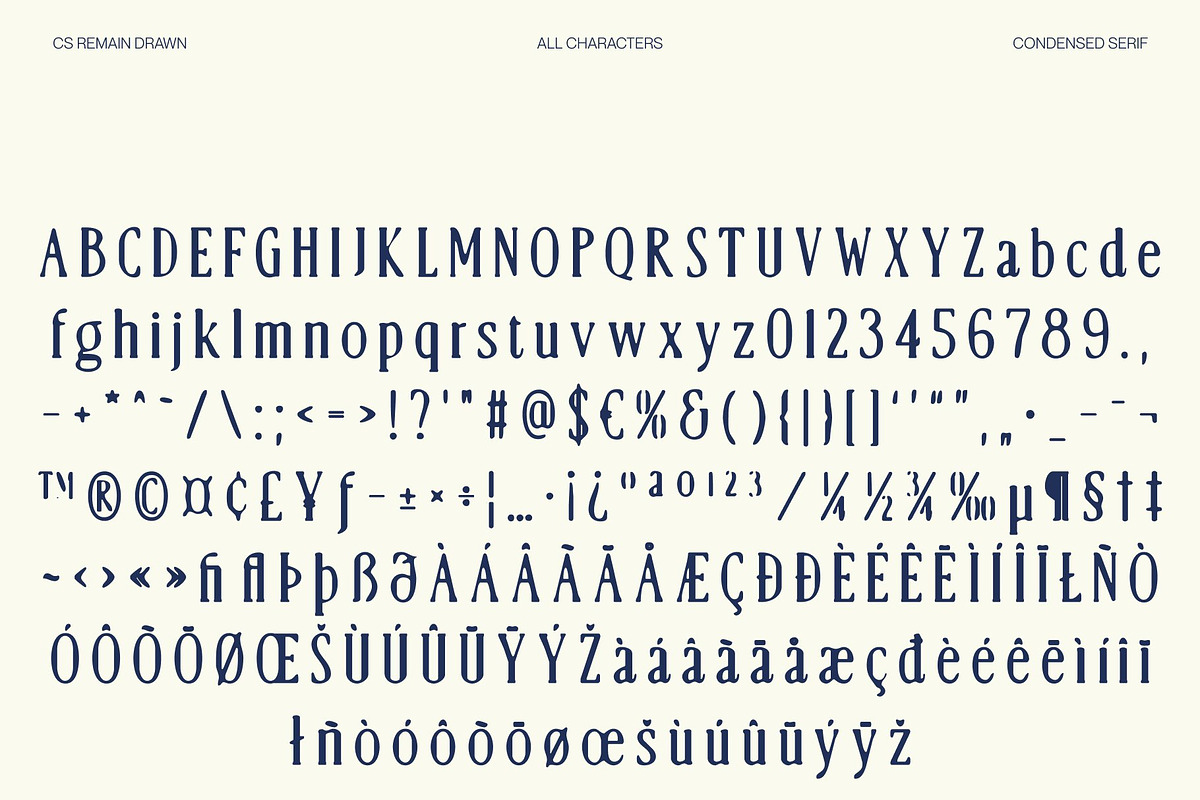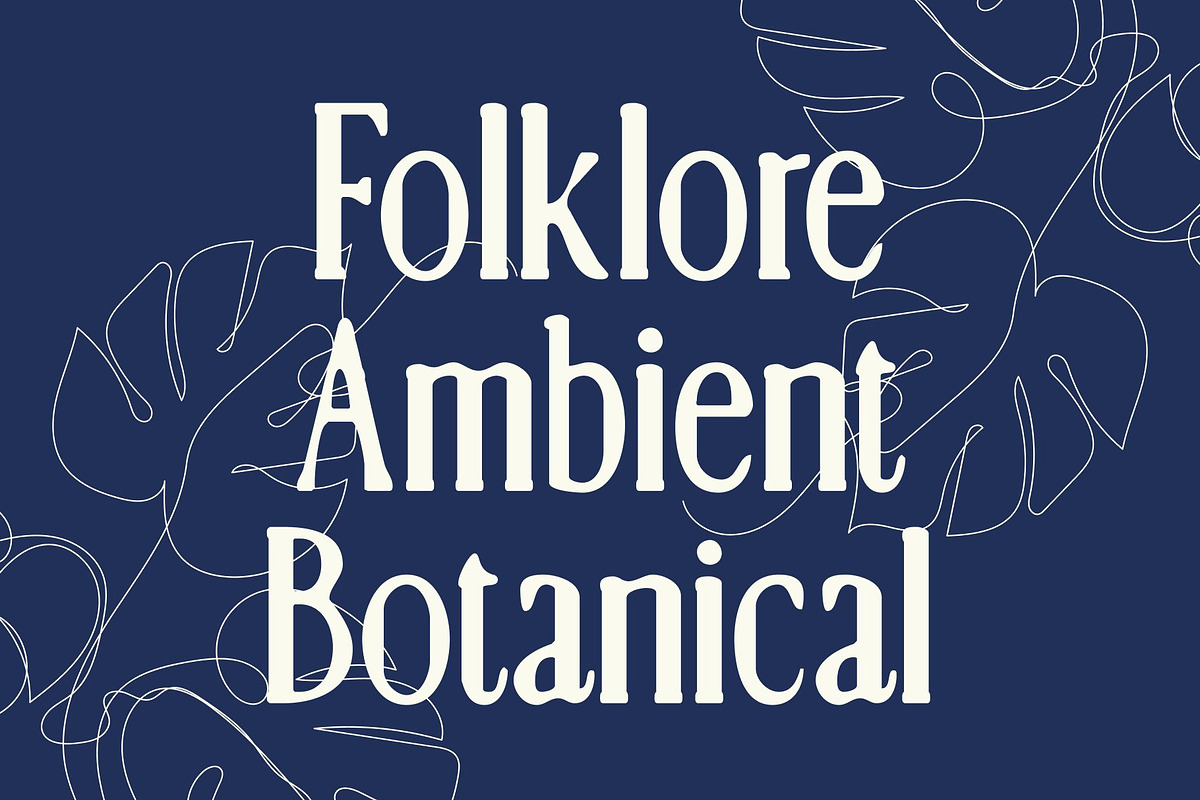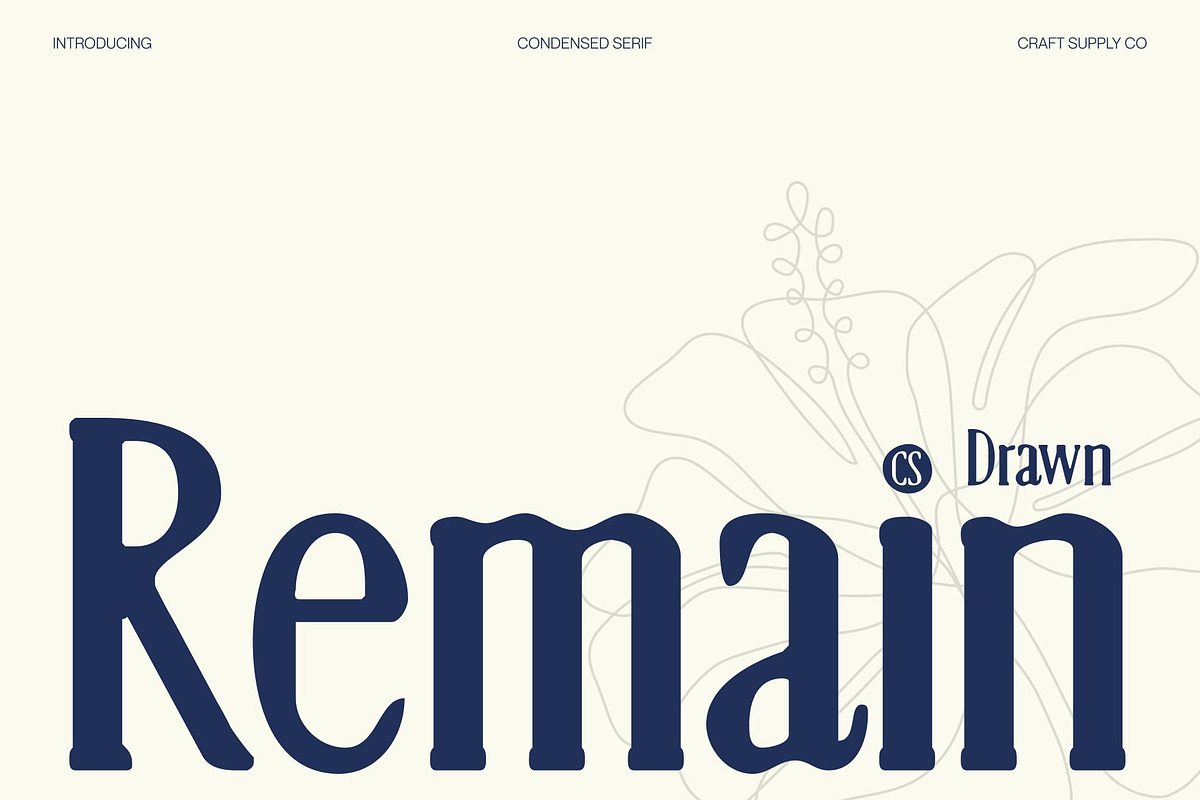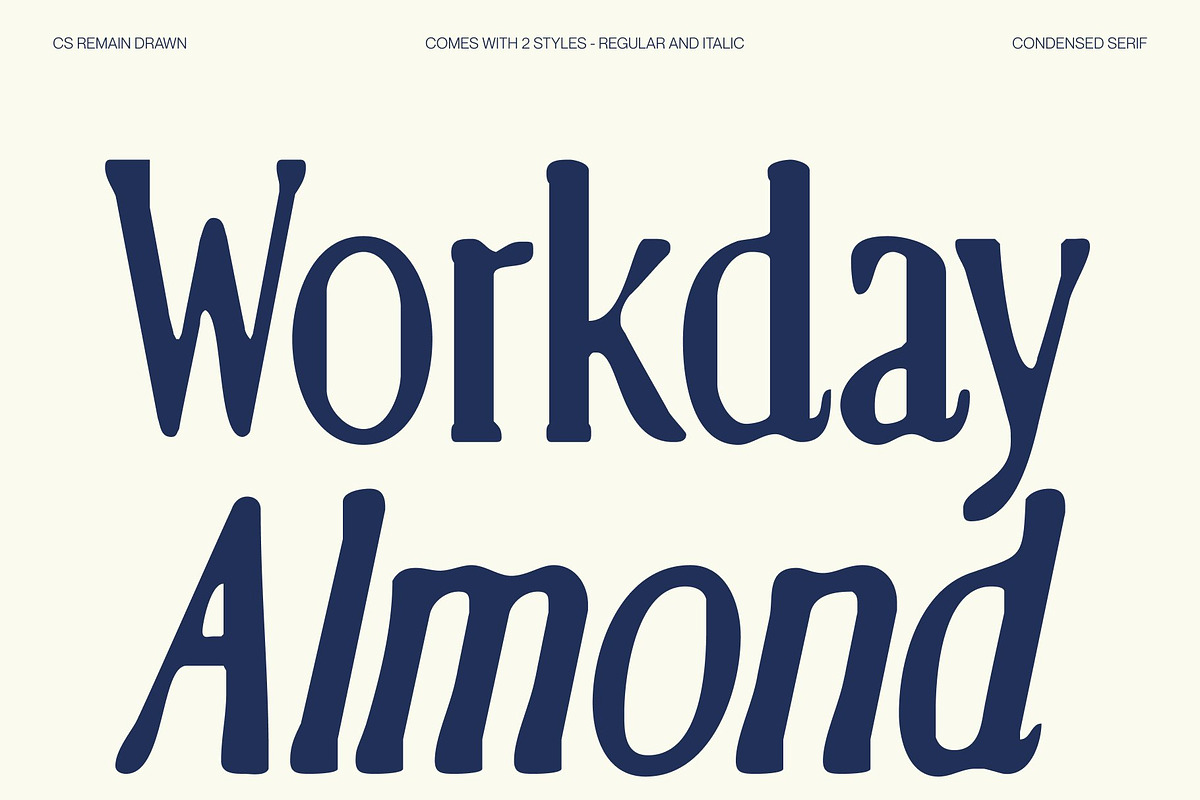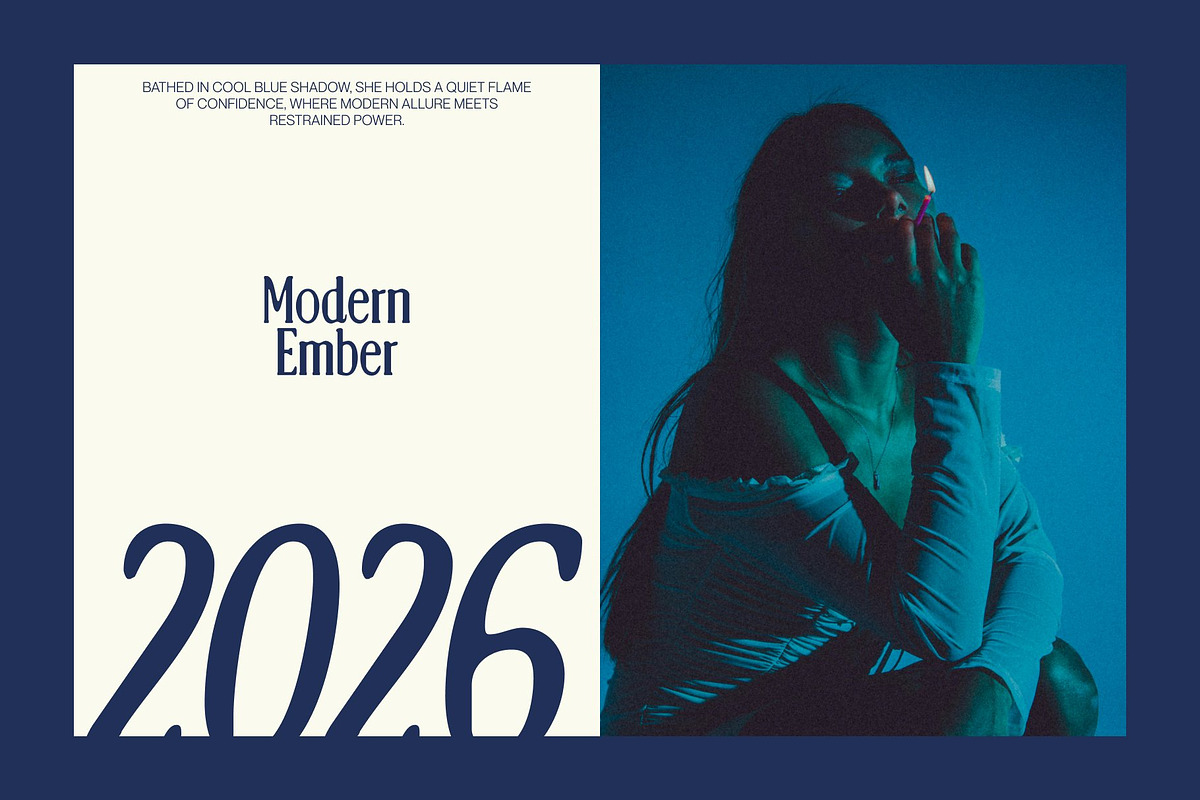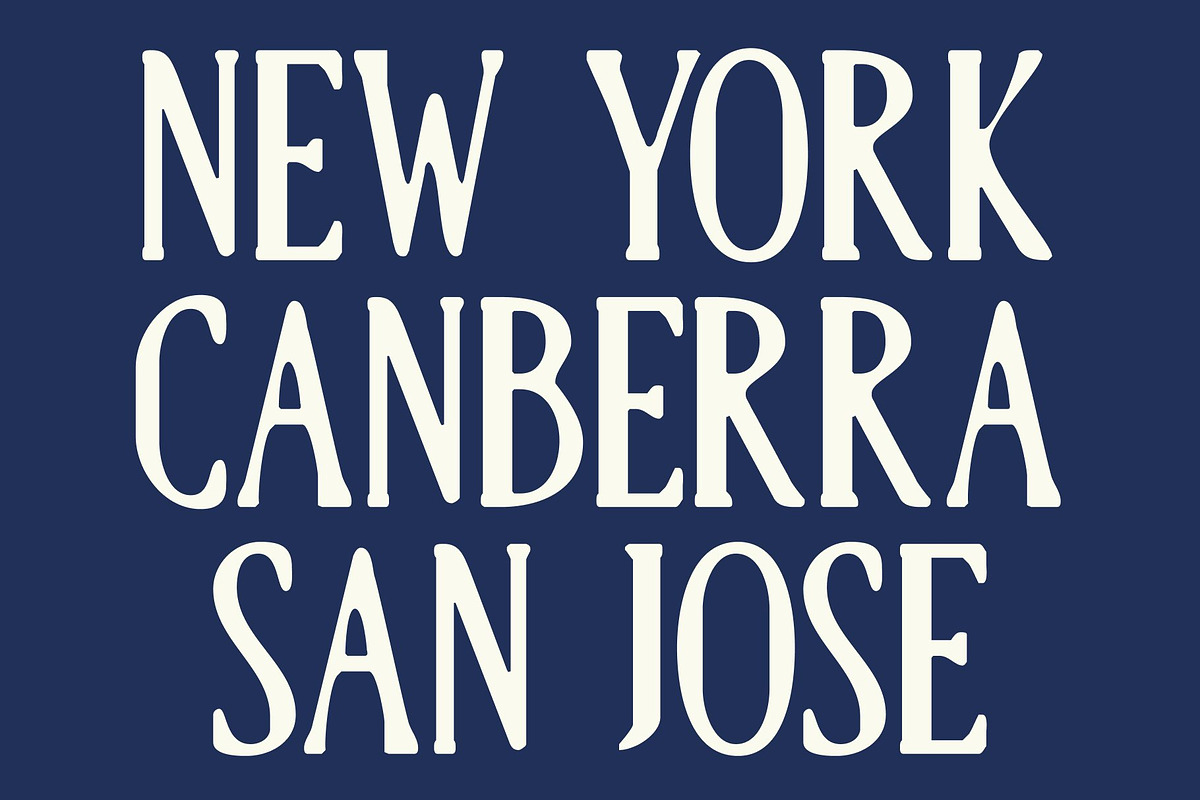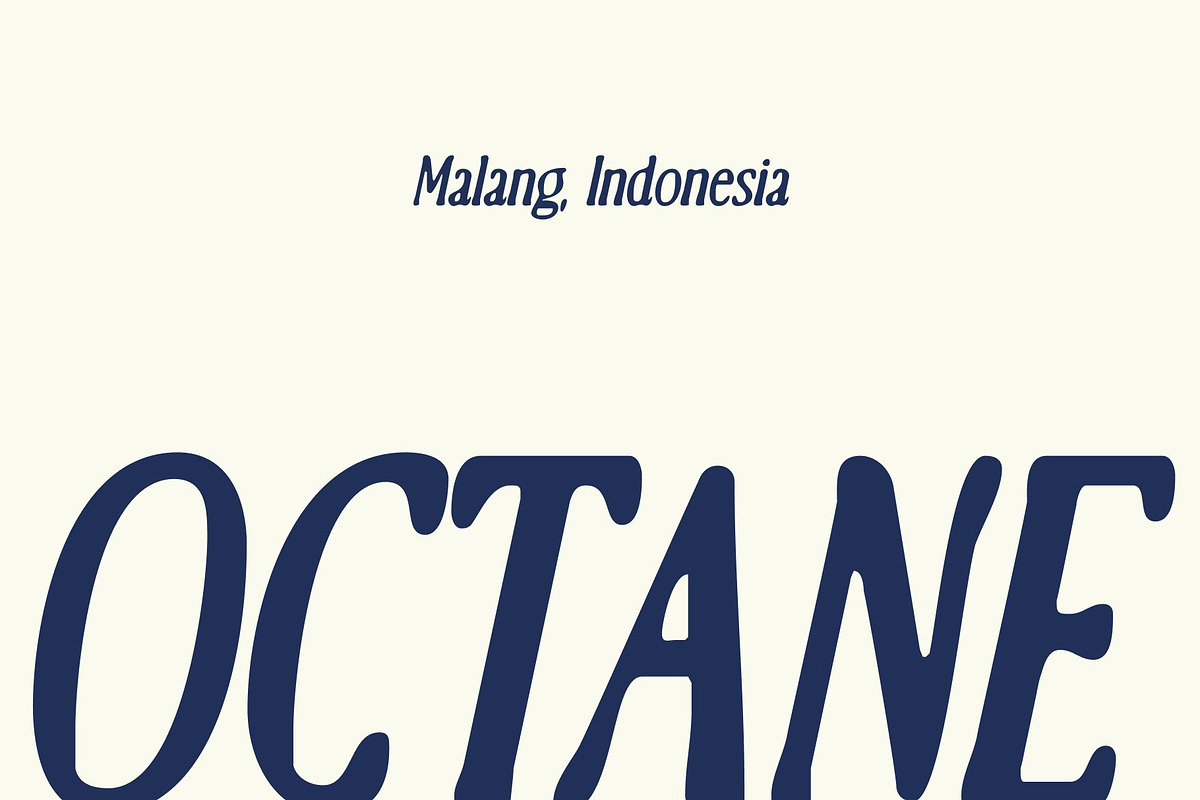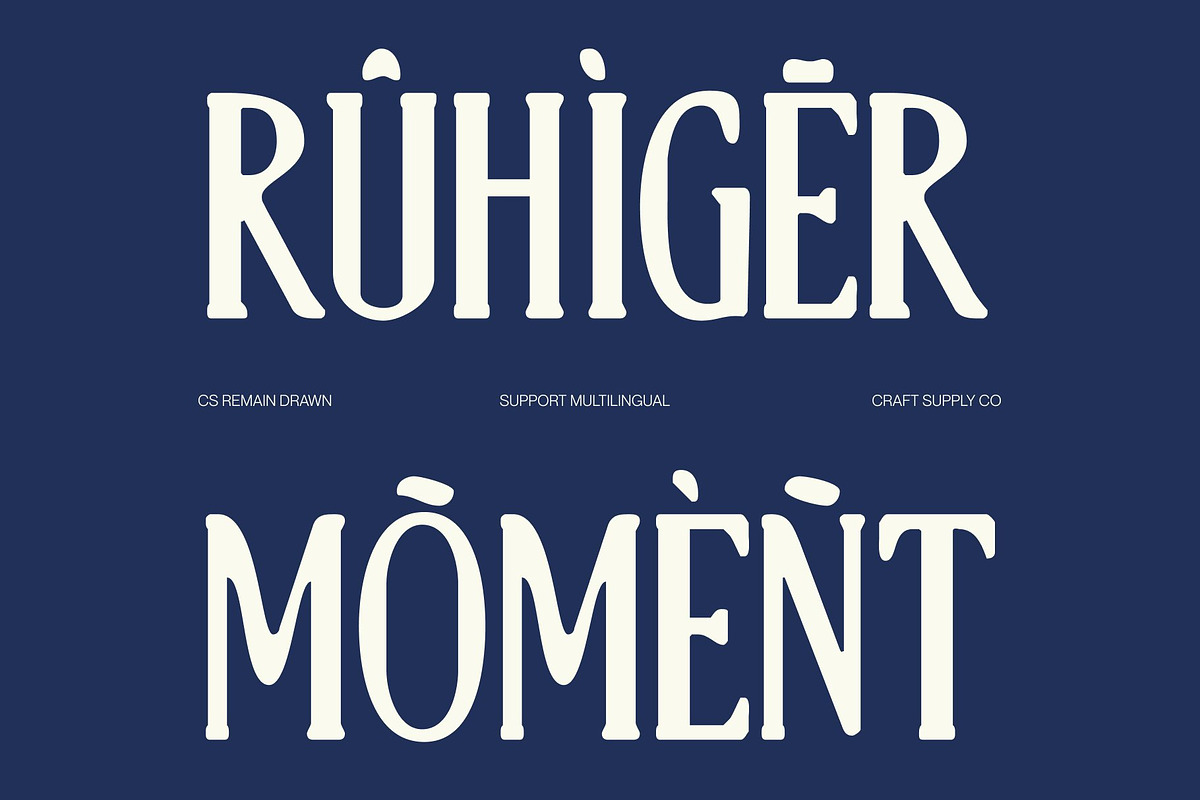
CS Remain Drawn
CS Remain Drawn – Modern Classic Elegance with Contemporary Appeal
Modern Classic Serif with Hand-Drawn Refinement This is a modern classic serif font that blends timeless elegance with clean contemporary aesthetics, enhanced by a subtle hand-drawn texture. Its carefully structured letterforms and balanced proportions create a sophisticated visual presence that feels both familiar and refreshingly current. The drawn finish adds warmth and artistic nuance, elevating the font with understated character and charm.
Clean Construction with Contemporary Sophistication Designed with clarity at its core, this font maintains smooth curves, controlled contrast, and precise serif detailing. The handcrafted texture gently softens its structure, preventing it from feeling overly formal while preserving its refined identity. This harmony between classic roots and modern clarity results in typography that feels graceful, polished, and visually engaging.
Timeless Style with Subtle Expressive Depth Carrying a quiet strength, the font stands out through elegance rather than excess. Its modern-classic tone adapts seamlessly to various creative contexts, offering distinction without overpowering the layout. The delicate drawn nuances introduce personality, giving the typeface a sophisticated yet approachable expression.
Ideal for Luxury Branding, Editorials, and Creative Projects This is perfectly suited for luxury branding, editorial layouts, packaging, posters, and high-end creative projects. Its refined serif form enhances headlines, brand identities, and visual storytelling with elegance, confidence, and contemporary appeal delivering a classy presence enriched with subtle handcrafted beauty.
- CS Remain Drawn Regular
- CS Remain Drawn Italic